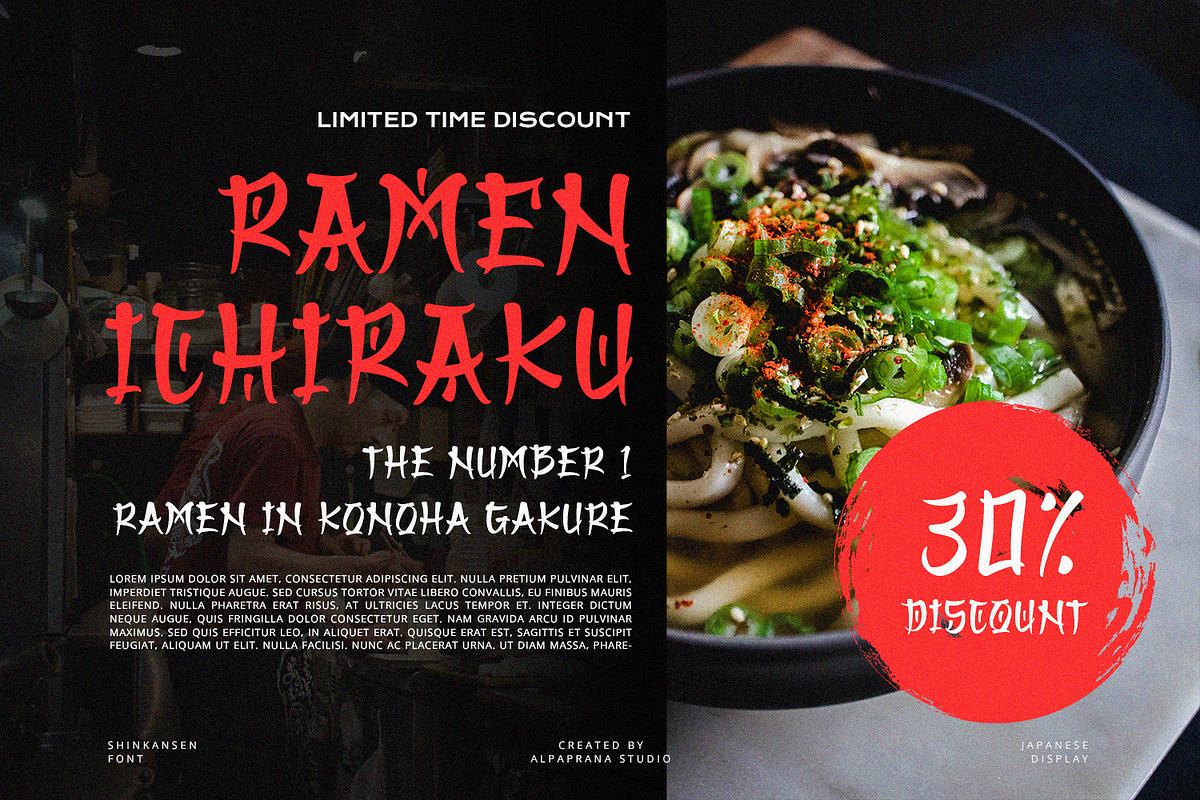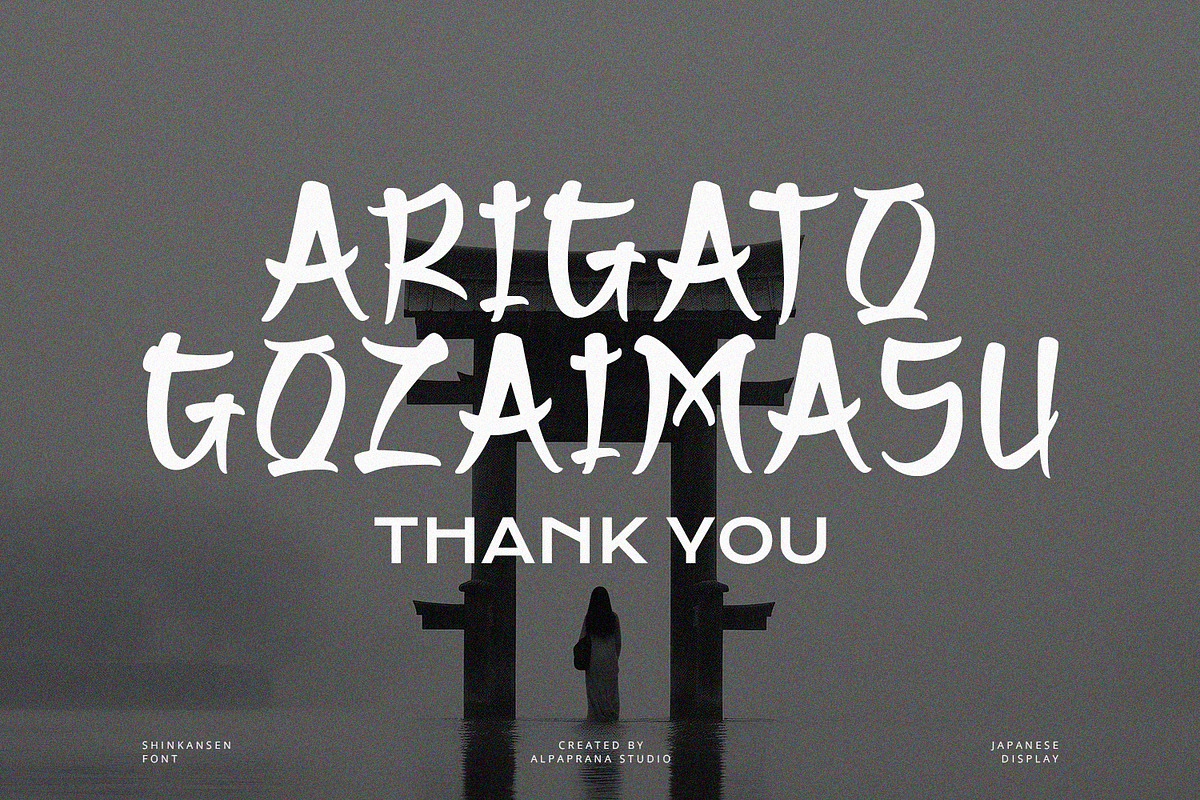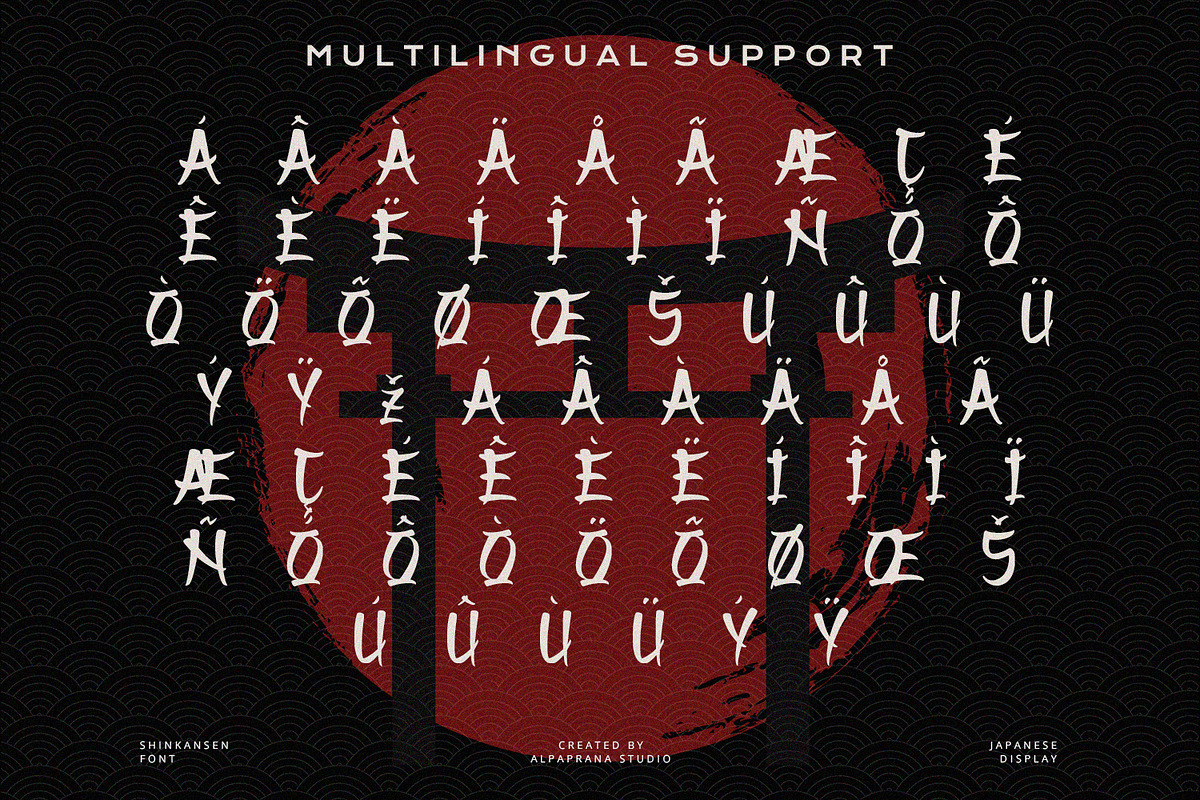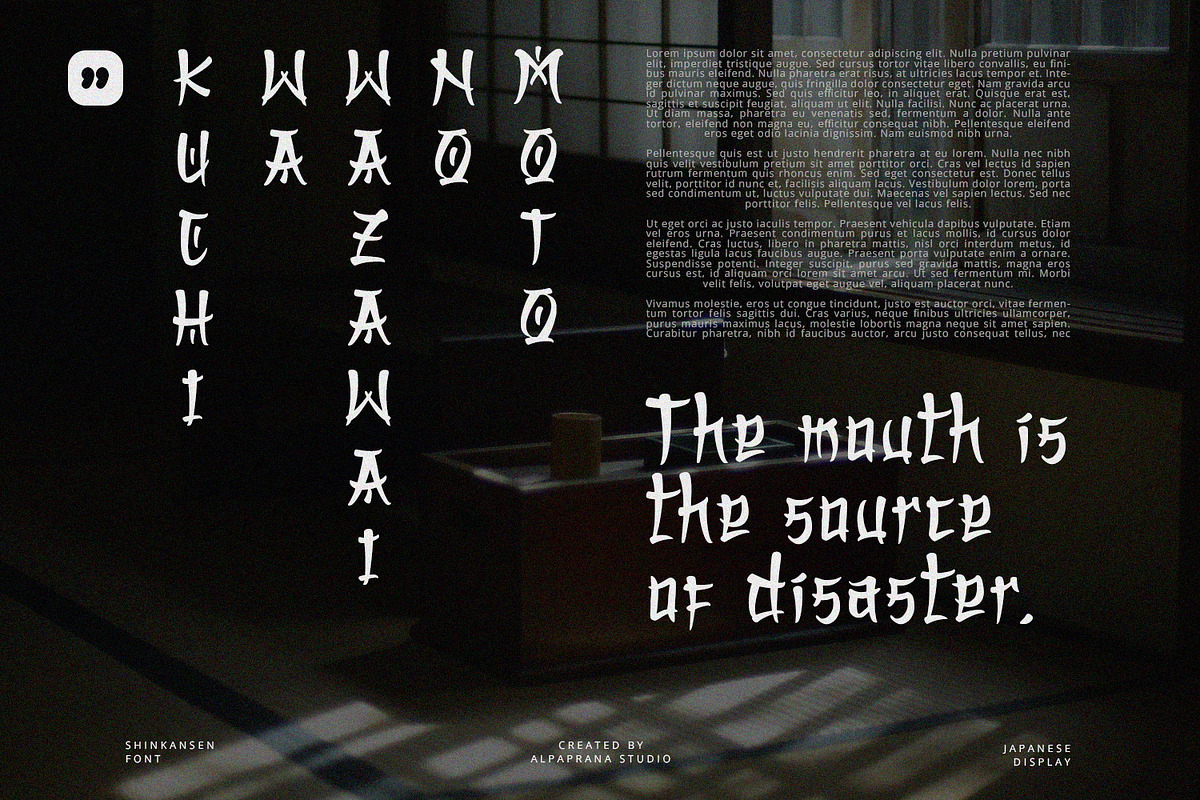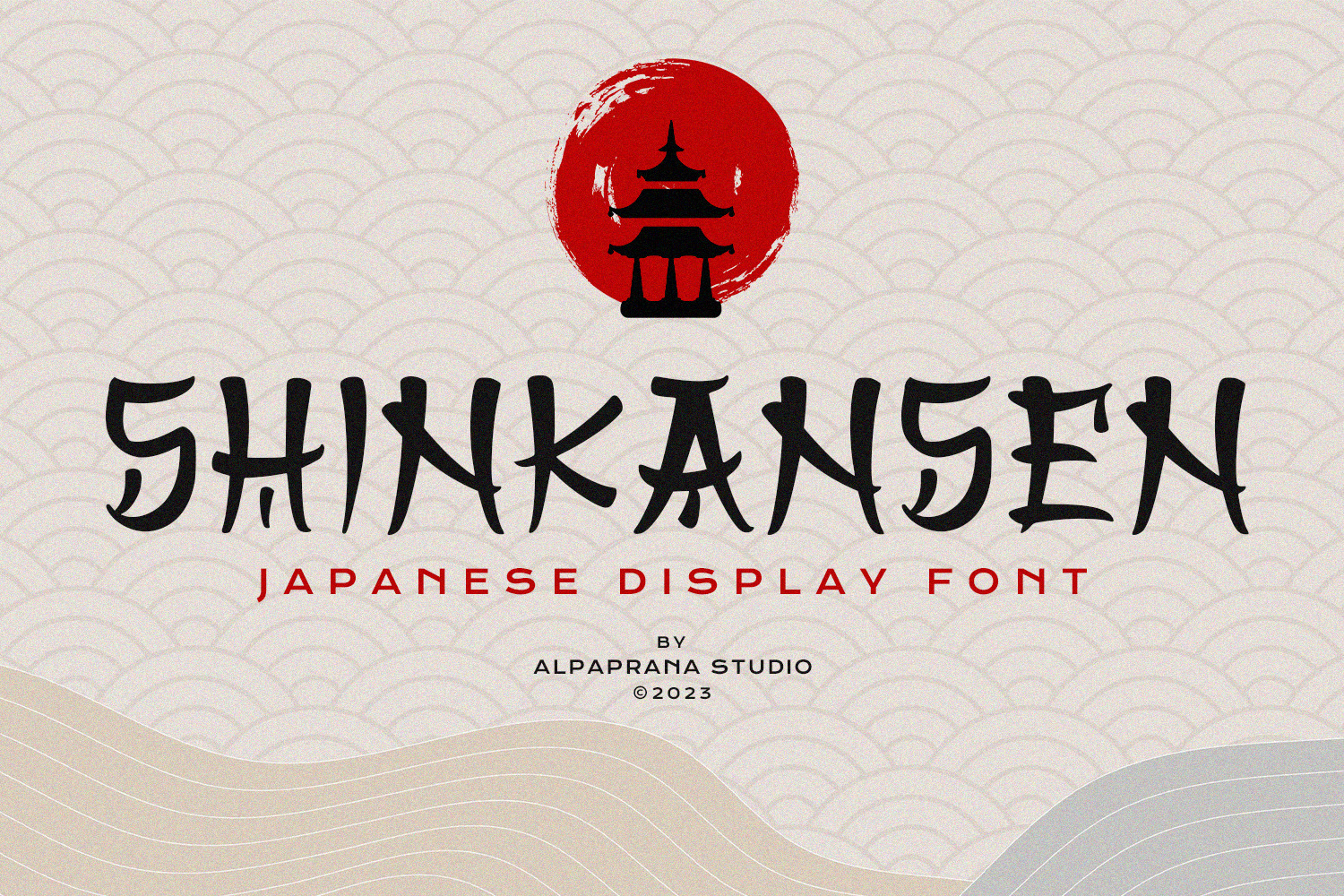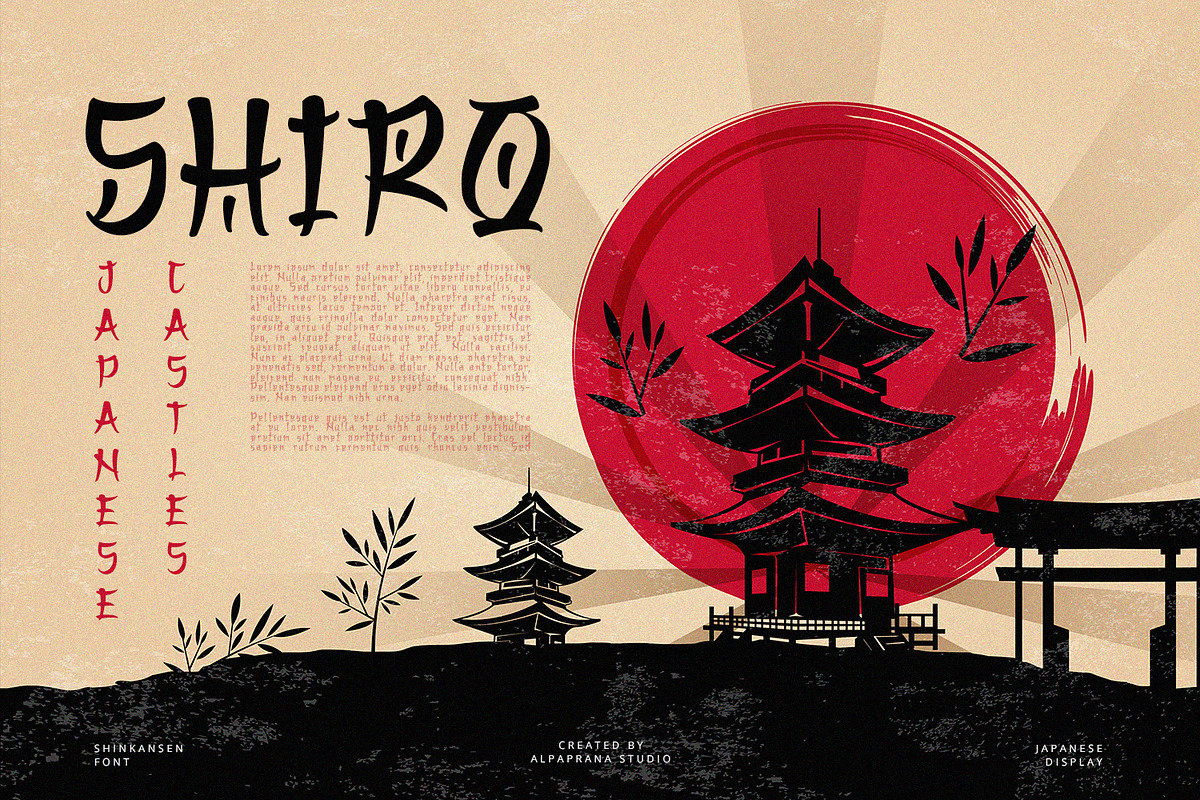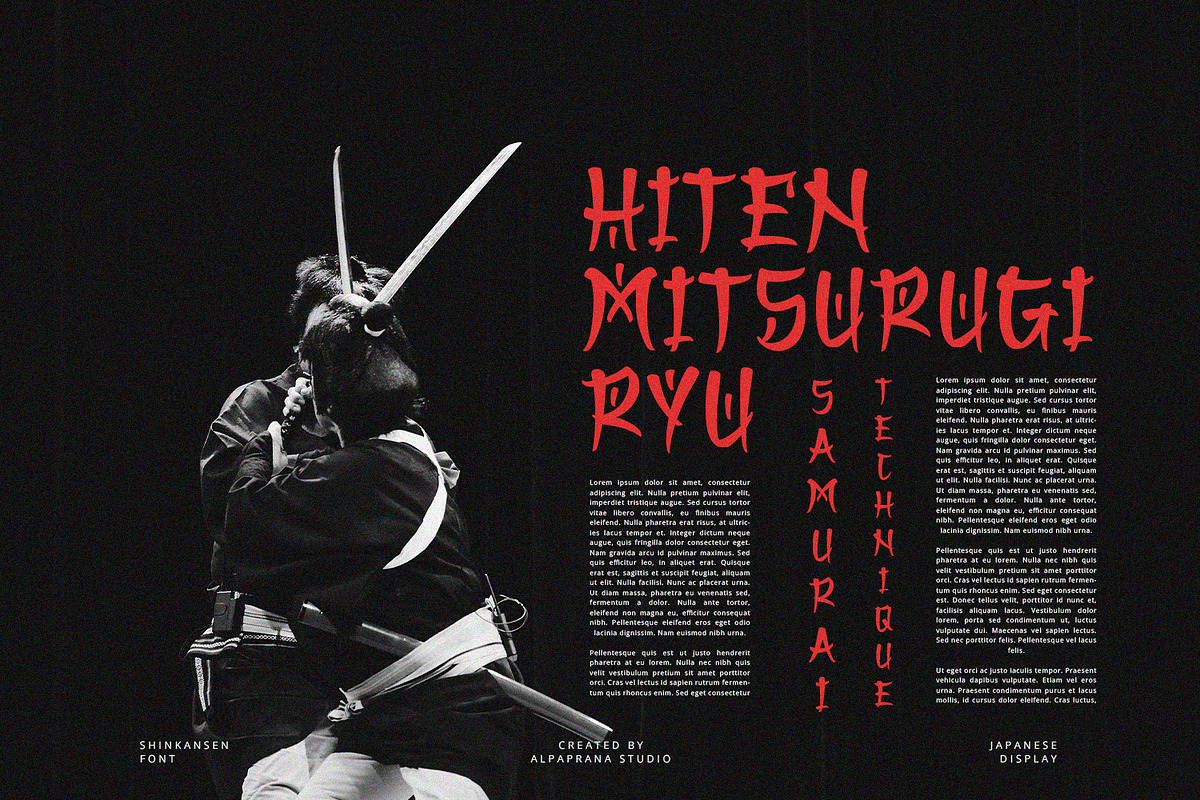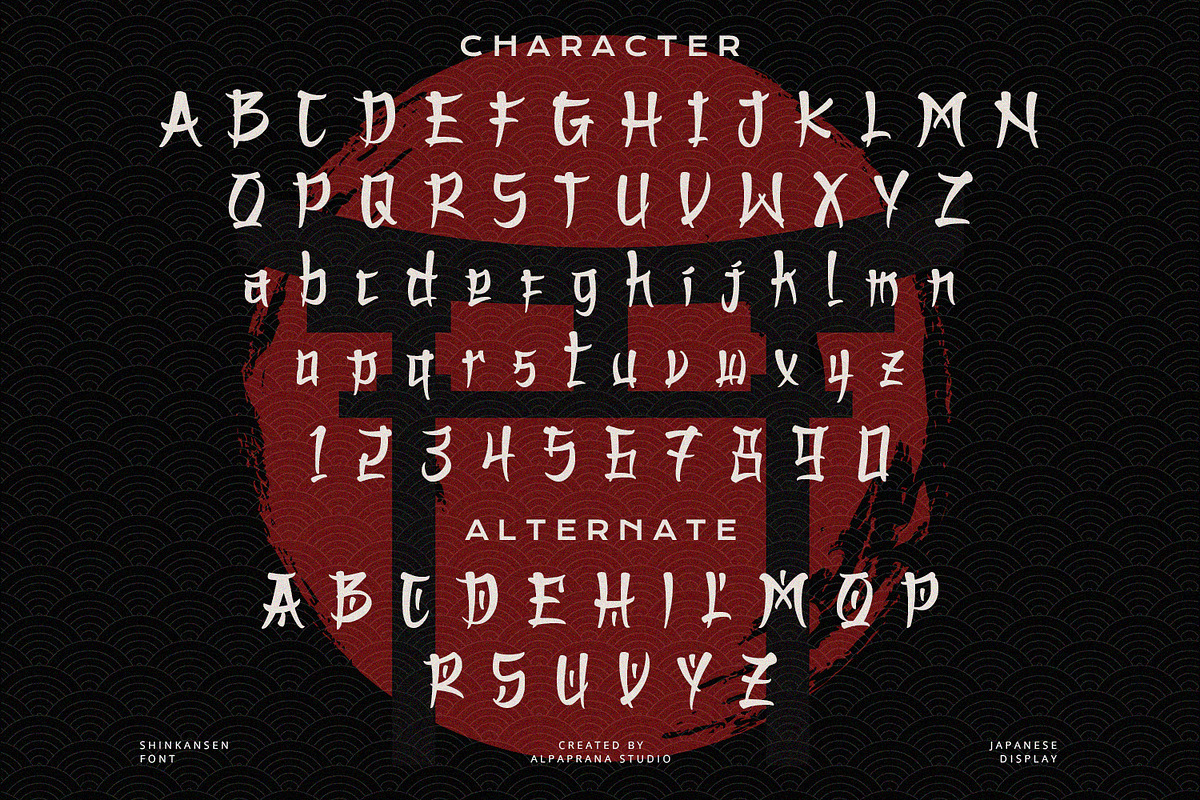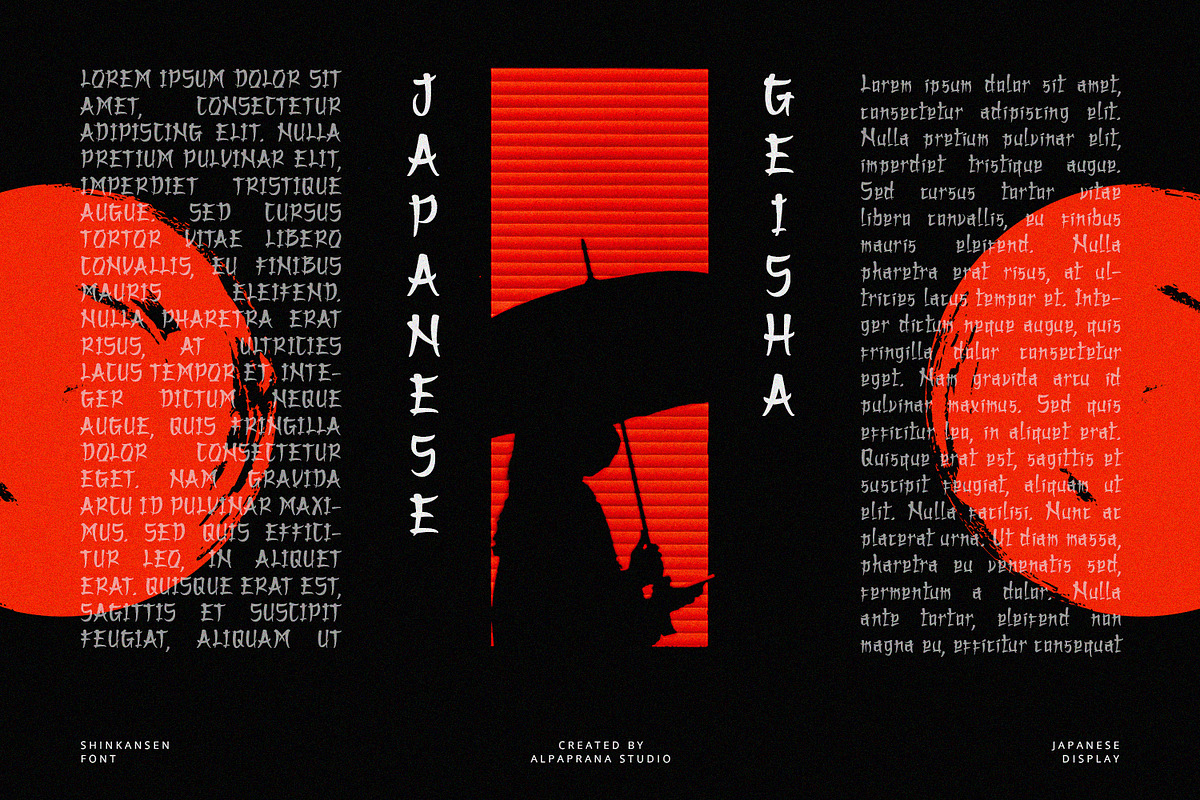
Shinkansen - Display Font
Shinkansen is a display font with authentic and modern feels. It will be perfectly used for Branding, Logo Design, Lettering, Logotype, Clothing, Poster, magazine, packaging, posters, shopping bags, t-shirts, book covers, photography, special events and other design project.